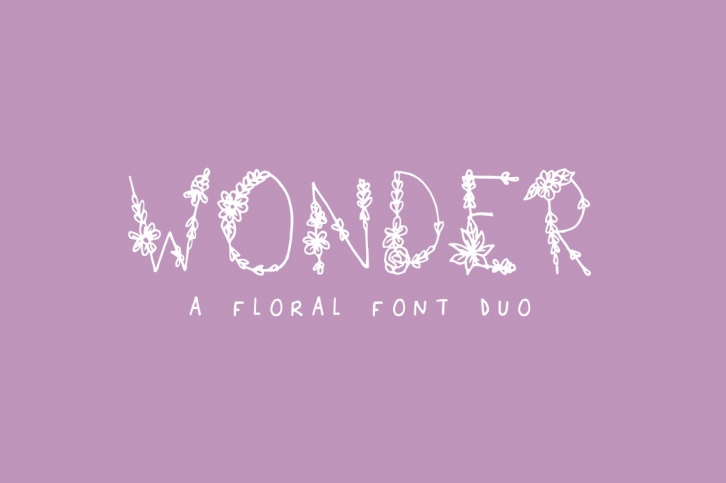
Wonder Floral is a trendy and unique font with an authentic style. It was designed by Salt and Pepper Designs and it's a great choice for creative people who need such a font. It was released on January 24, 2018 and the file size is 12.16 MB. Wonder Floral will add an organic vibe to any design idea!